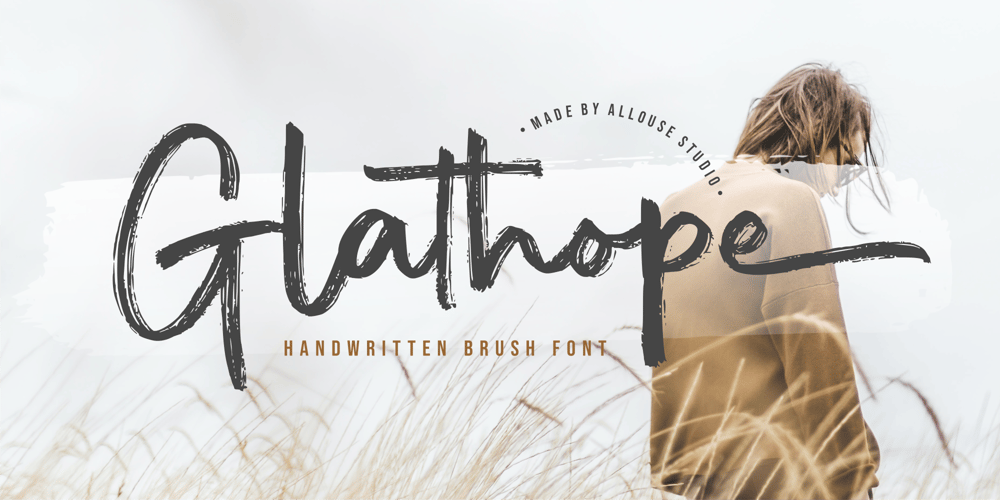
Glathope
Glathope font
Glathope Font Family was designed by Fachrizal Yusuf and published by Allouse Studio. Glathope contains 1 styles and family package options. Proudly Presenting, Glathope is A Handwritten Brush FontGlathope is perfect for any titles, logo, product packaging, branding project, megazine, social media, wedding, or just used to express words above the background.Glathope also come with Multi-Lingual Support.Enjoy the font, feel free to comment or feedback, send me PM or email. Thank You!